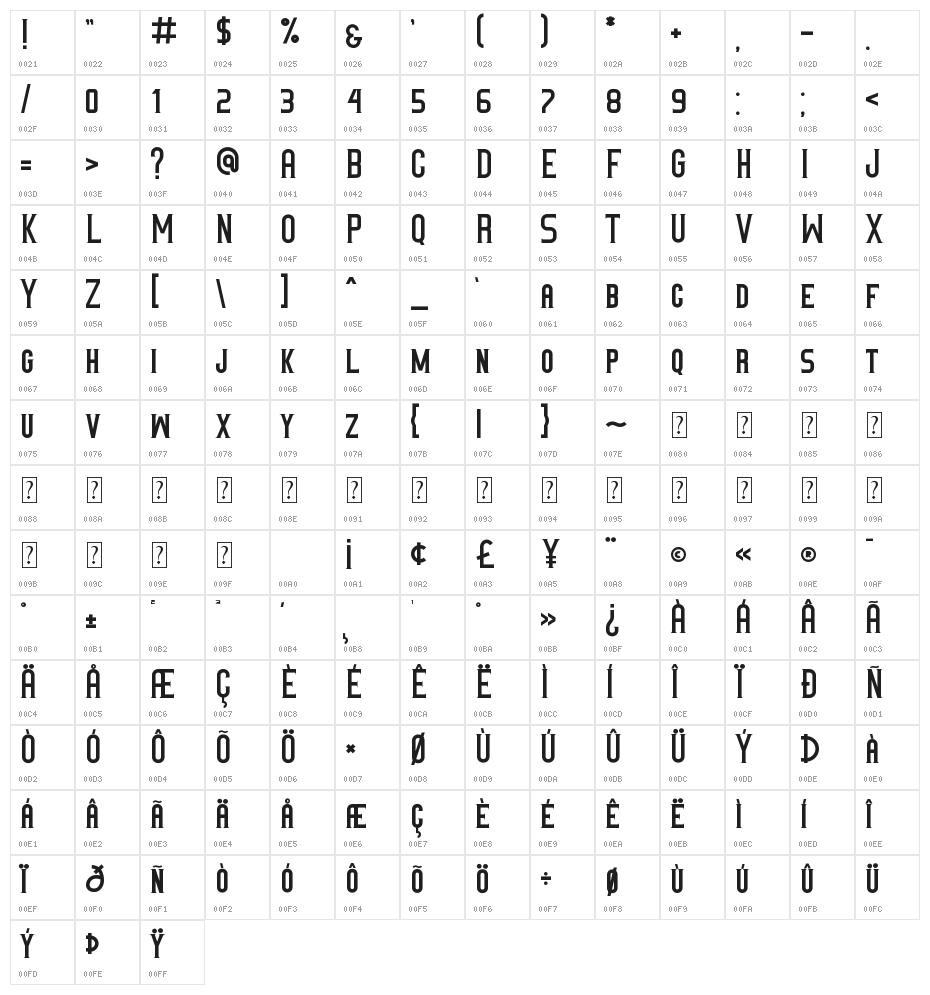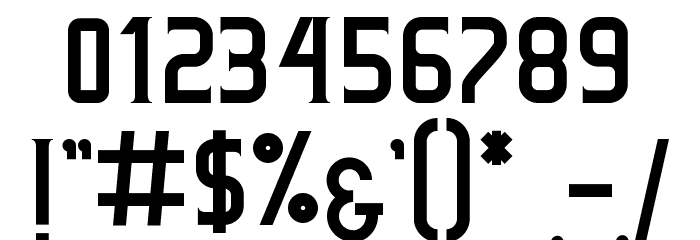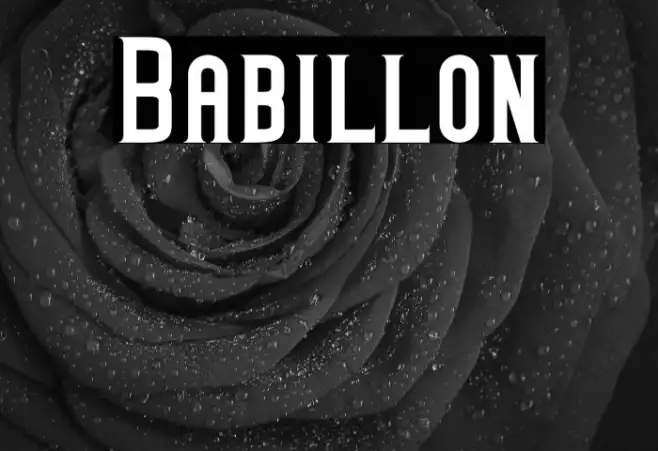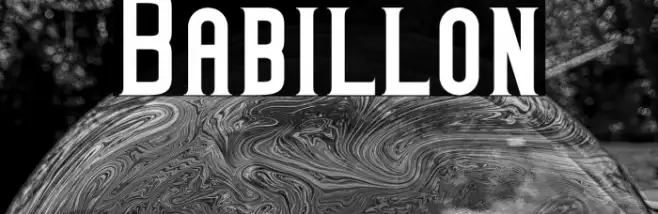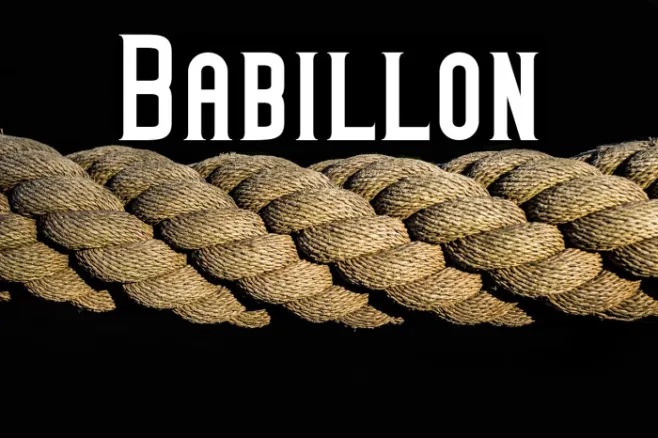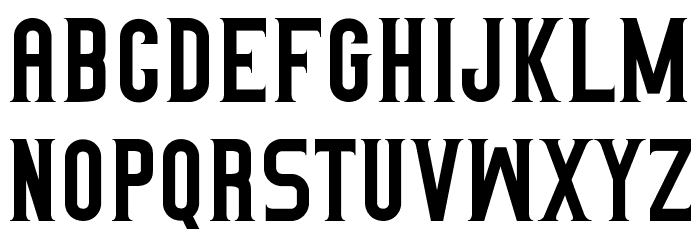
Babillon Font
Babillon Description
This font features a bold and assertive style with a strong presence, characterized by its thick strokes and geometric shapes. The uppercase letters are tall and narrow, giving a sense of height and elegance. The lowercase letters maintain a consistent style, complementing the uppercase with a slightly more condensed form. The numerals are clear and easily distinguishable, making them suitable for various applications. Special characters are designed with the same boldness, ensuring uniformity across the typeface. The overall design is modern and impactful, making it ideal for attention-grabbing headlines and branding projects.
| Proposed Projects | Ideal for branding, headlines, posters, and any project requiring a strong visual impact. |